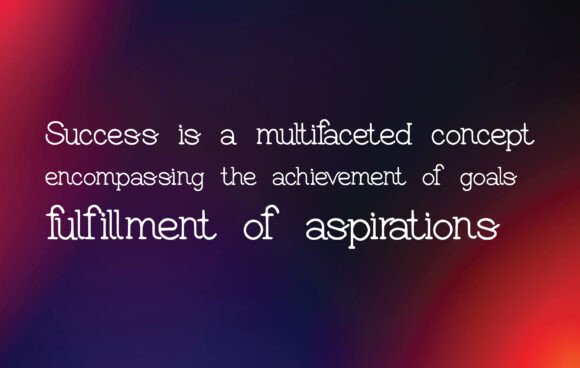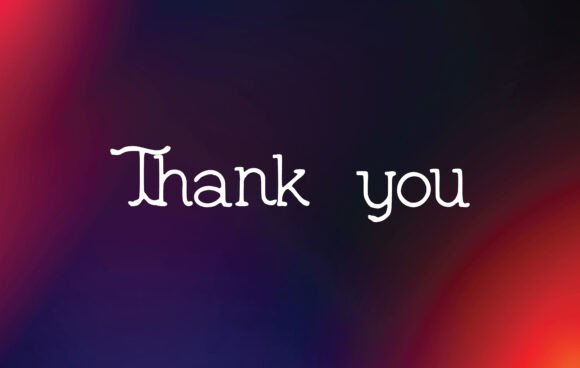
Introduction to Alistair Font
Alistair is a lovely and beautiful handwritten font.
Key Features of Alistair Font
Why Choose Alistair Font?
Alistair Font offers exceptional quality and versatility, making it a valuable addition to your design toolkit. Whether you’re creating for personal projects or commercial use, Alistair Font delivers professional results.